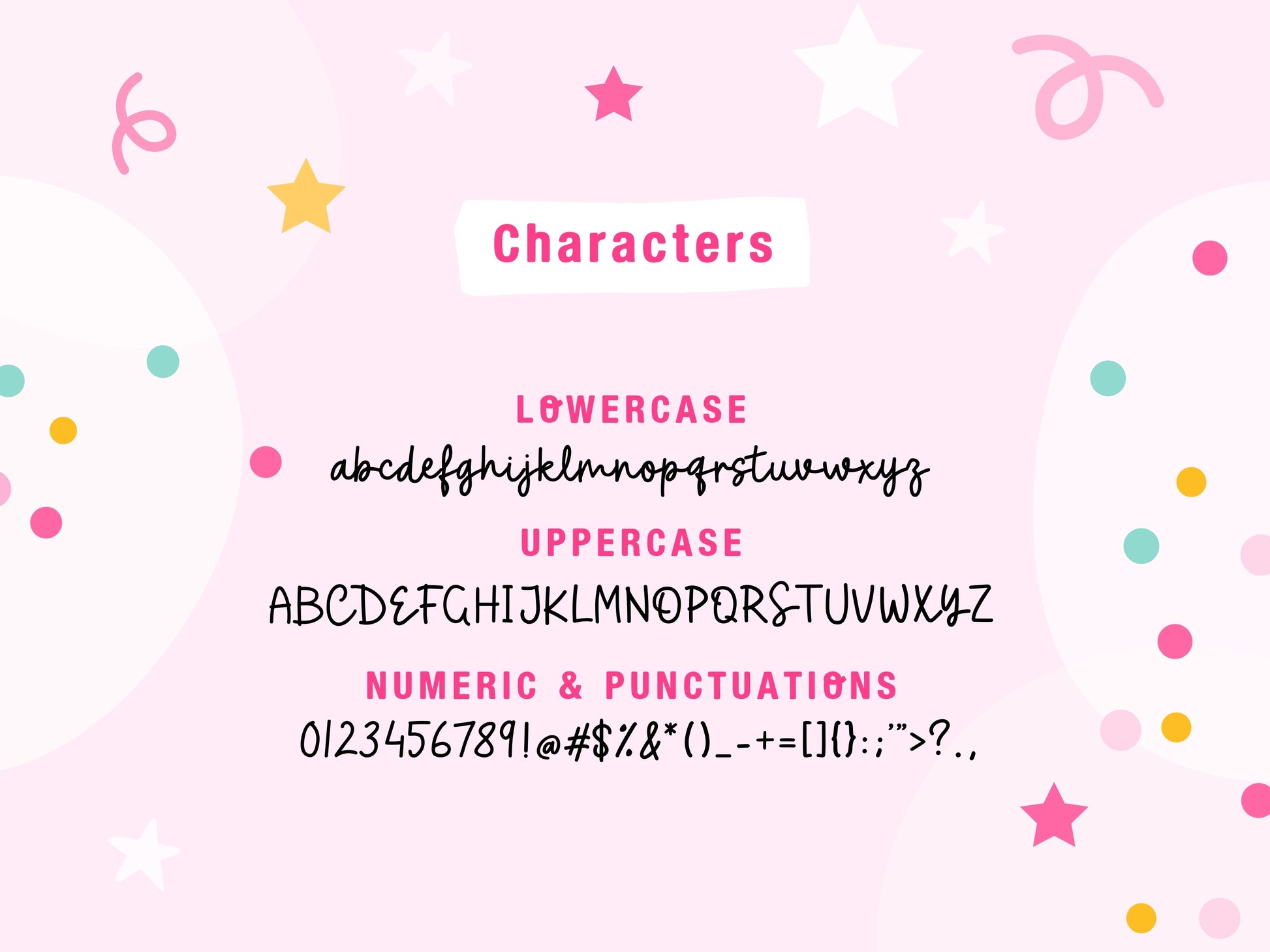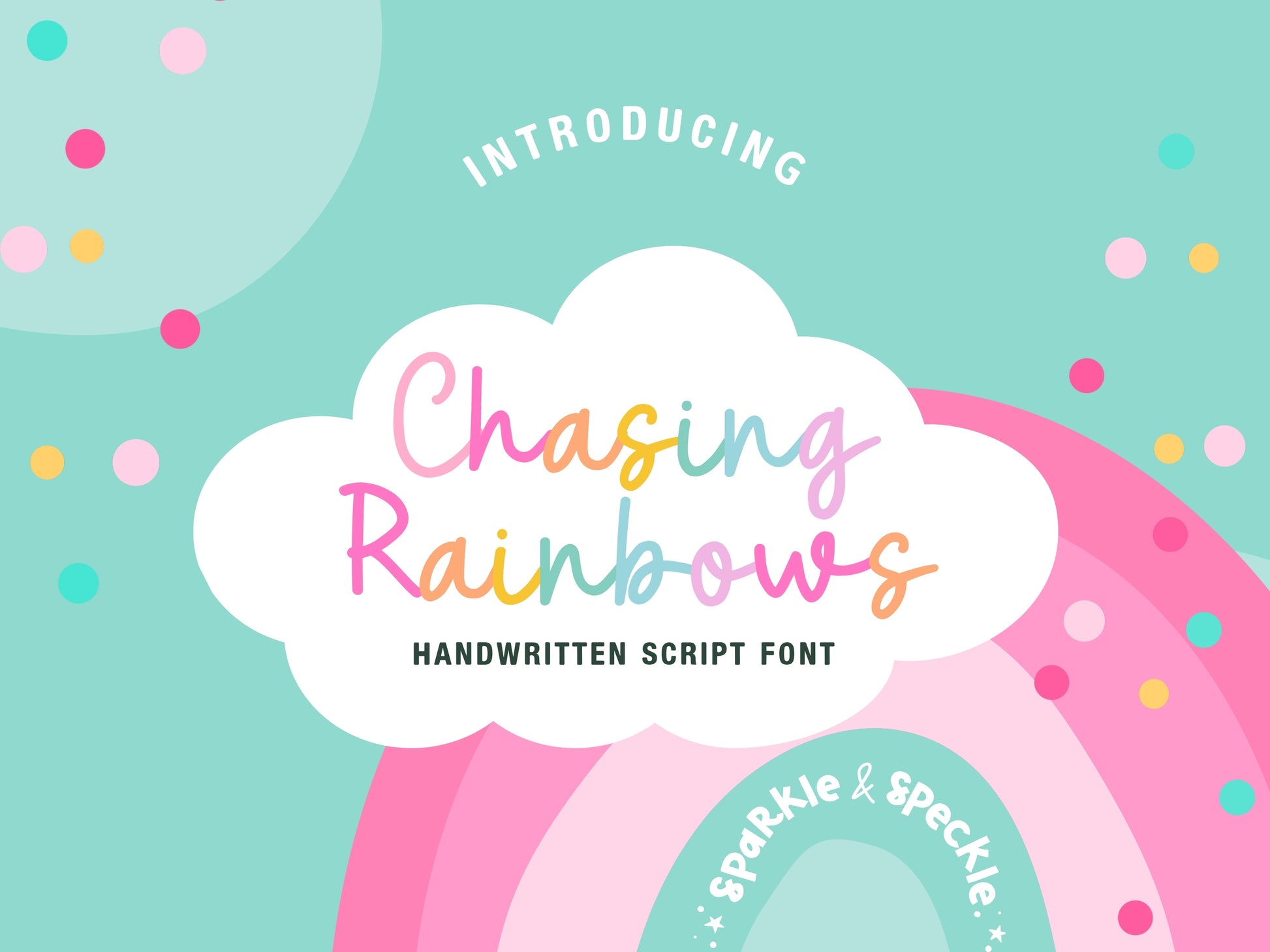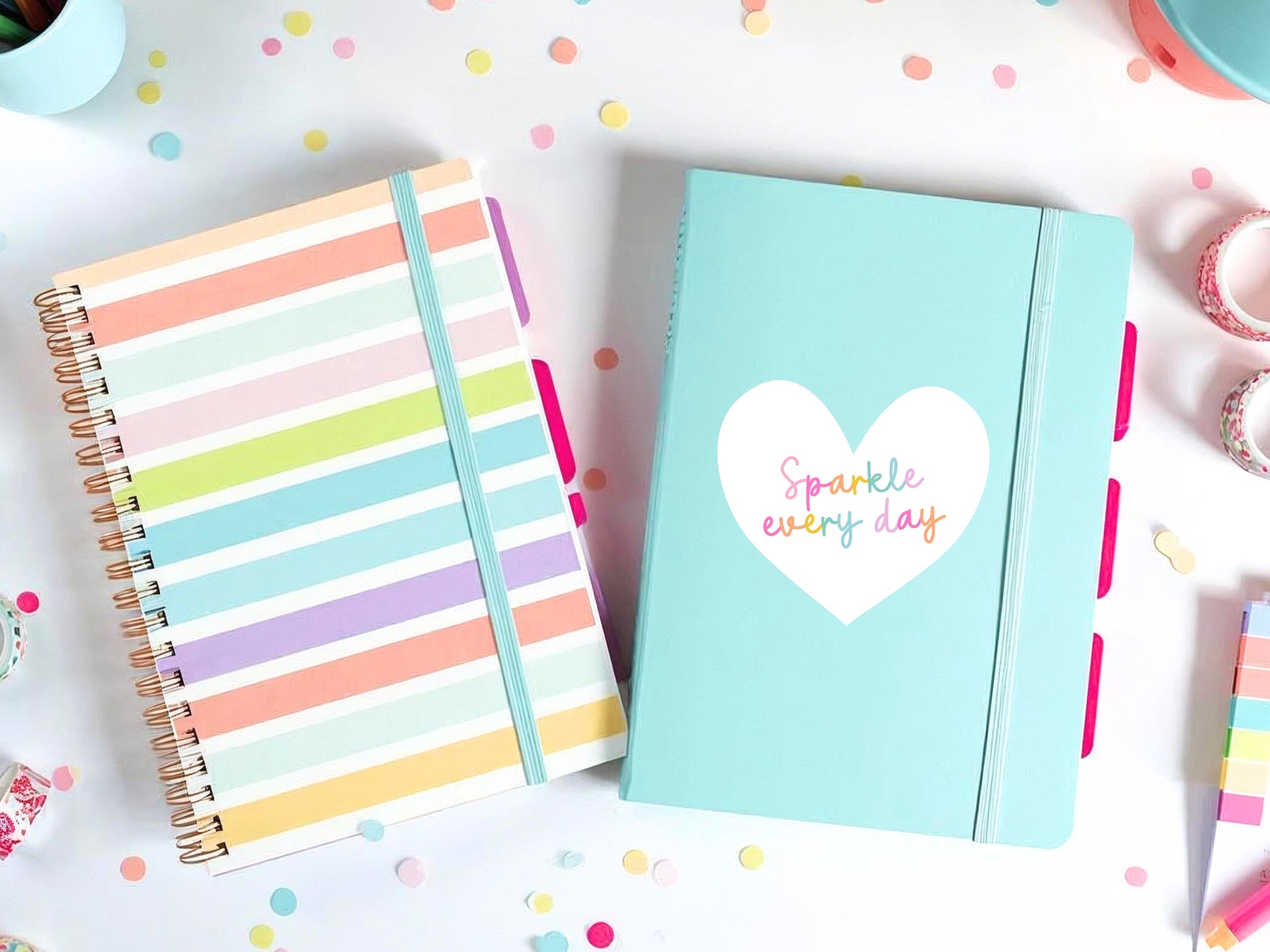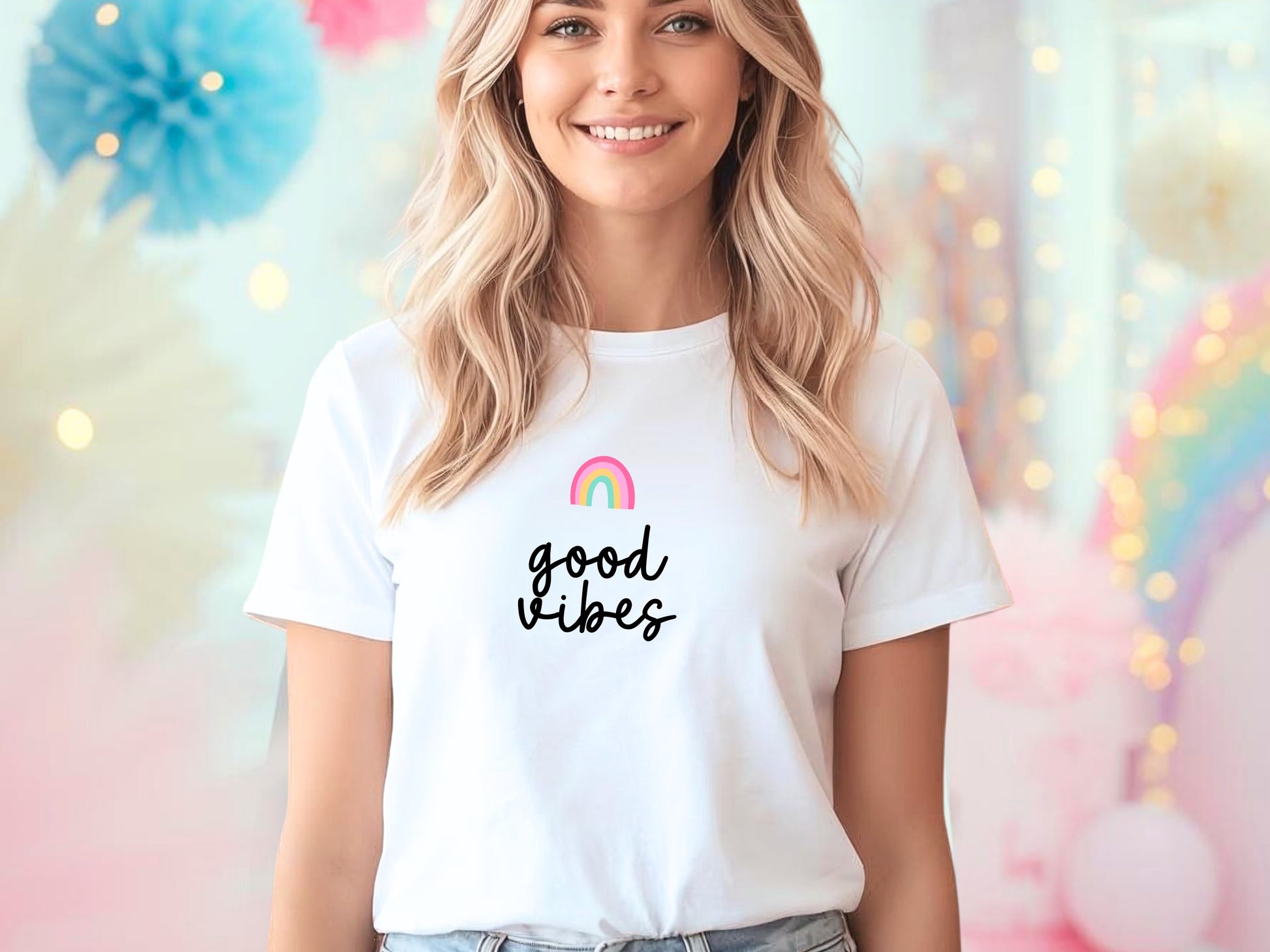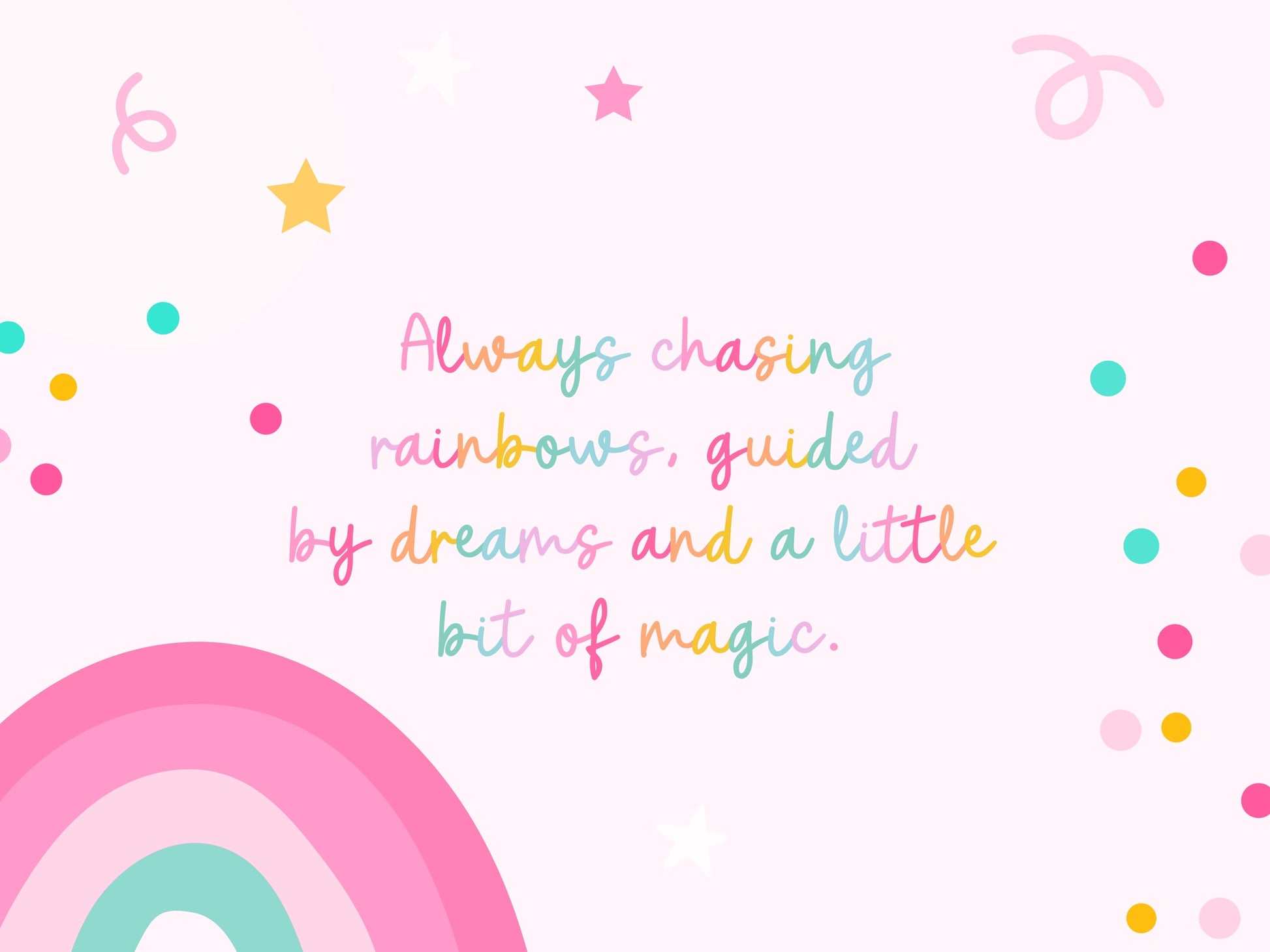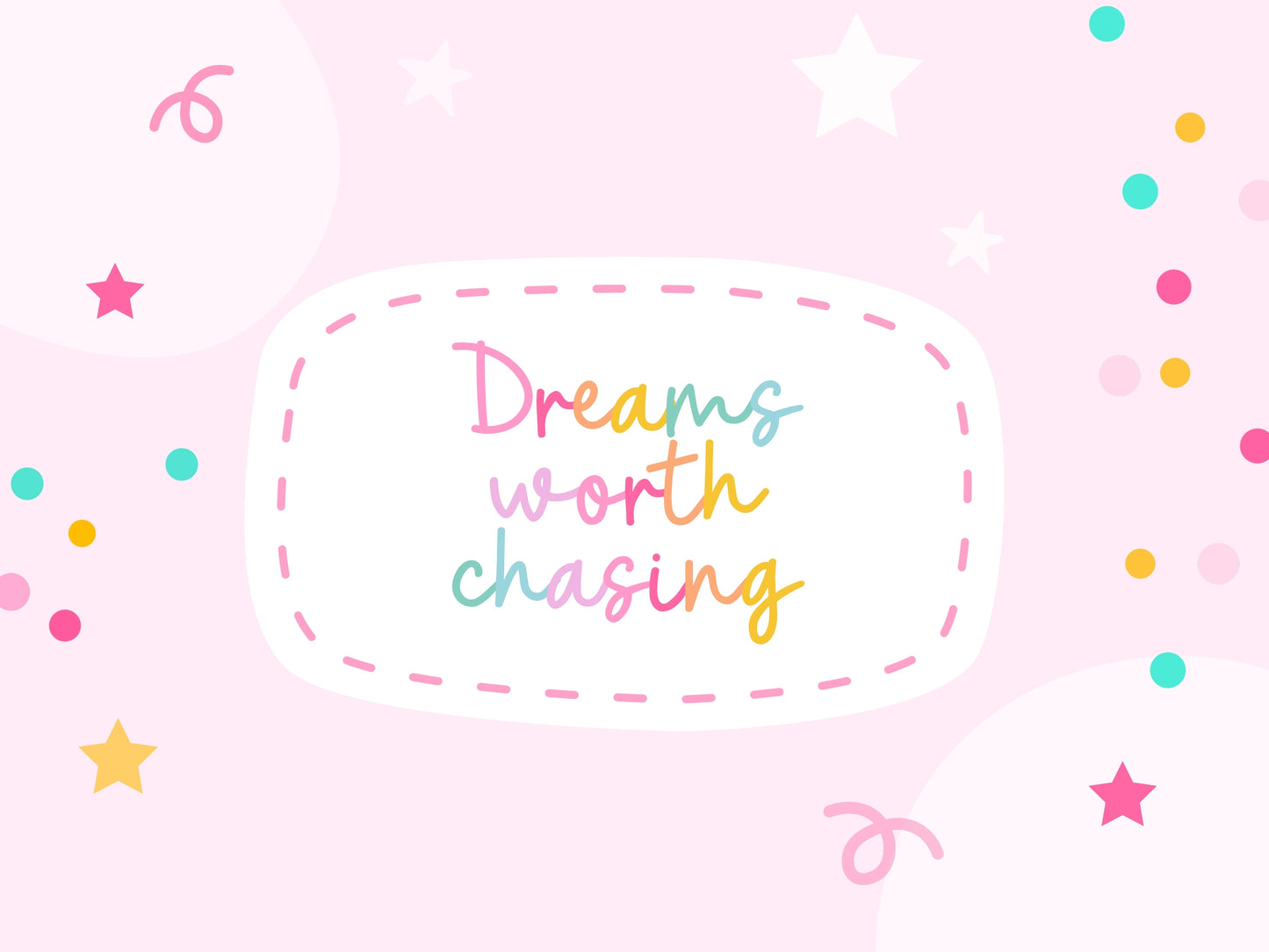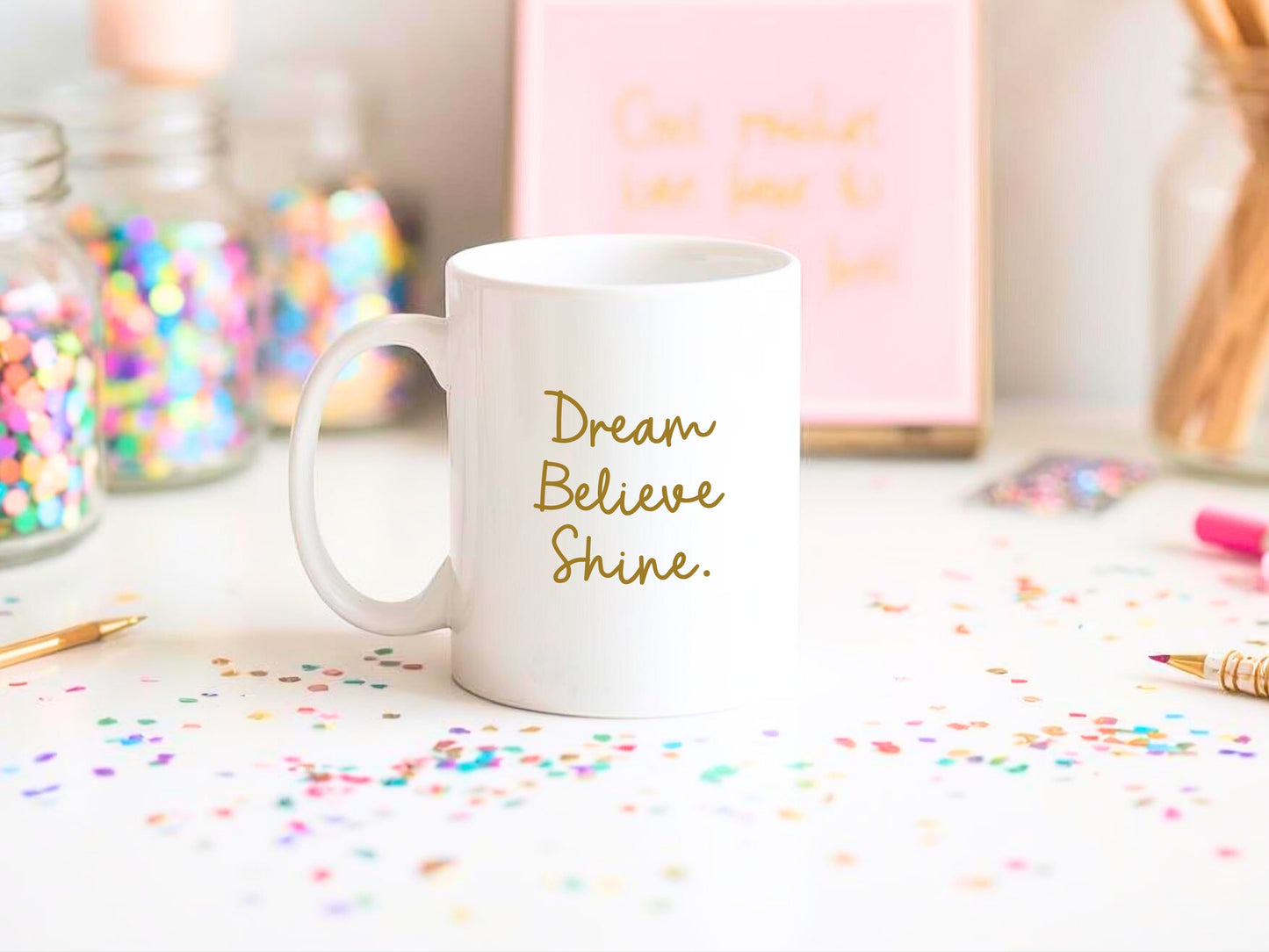
Chasing Rainbows Handwritten Script Font
Introducing “Chasing Rainbows Font” – This handwritten script font features clean, straight, smoothly connected letters, creating a modern and polished handwritten look. Designed to feel natural yet refined, it’s easy to read while still keeping a soft, personal touch.